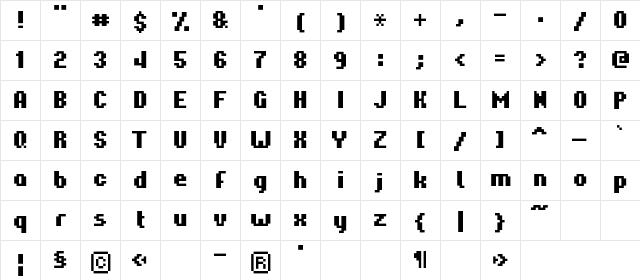
Hardpixel Regular
| Foundry | Anton Kudin & Jovanny Lemonad (prod.) |
| Designer | Anton Kudin |
| Year | 2010 |
Design Context for Hardpixel Typeface
Hardpixel celebrates the constraints of early digital type, turning pixel geometry into a distinctive and immediately recognisable style.
Well-suited to indie game interfaces, retro computing aesthetics, and pixel art-adjacent design work.
Pro Tip: Use Hardpixel at sizes that align with its pixel grid for the sharpest rendering — scaling to non-integer multiples can introduce unwanted blur.